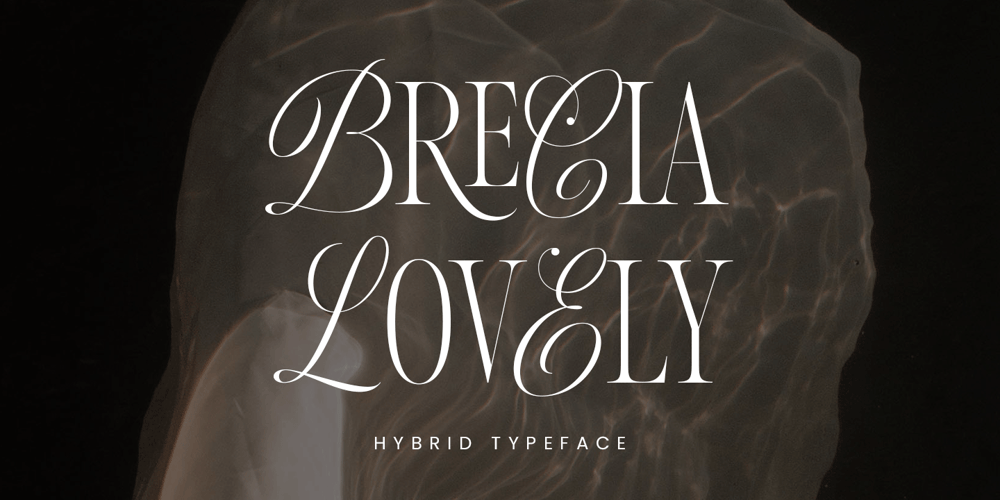
Brecia Lovely
Brecia Lovely font
Brecia Lovely Font Family was designed by Ahmad Ramzi Fahruddin and published by Arterfak Project. Brecia Lovely contains 1 styles and family package options. Introducing our latest experiment, “Brecia Lovely,” a hybrid font that combines script font (as uppercase) and slim serif (as lowercase). It features beautiful ligatures and special characters that provide a dynamic, elegant, and luxurious impression.Inspired by fashion magazines and modern typography, Brecia Lovely offers elegance that you can use in your designs, such as posters, flyers, stories, magazines, blogs, editorials, titles, displays, and more. It is a classy font that you can combine with 50+ ligatures and 60+ alternates.What you will get: Uppercase Lowercase Numbers Symbols & punctuation Stylistic alternates Ligatures Multilingual support Thank you for visiting, happy designing